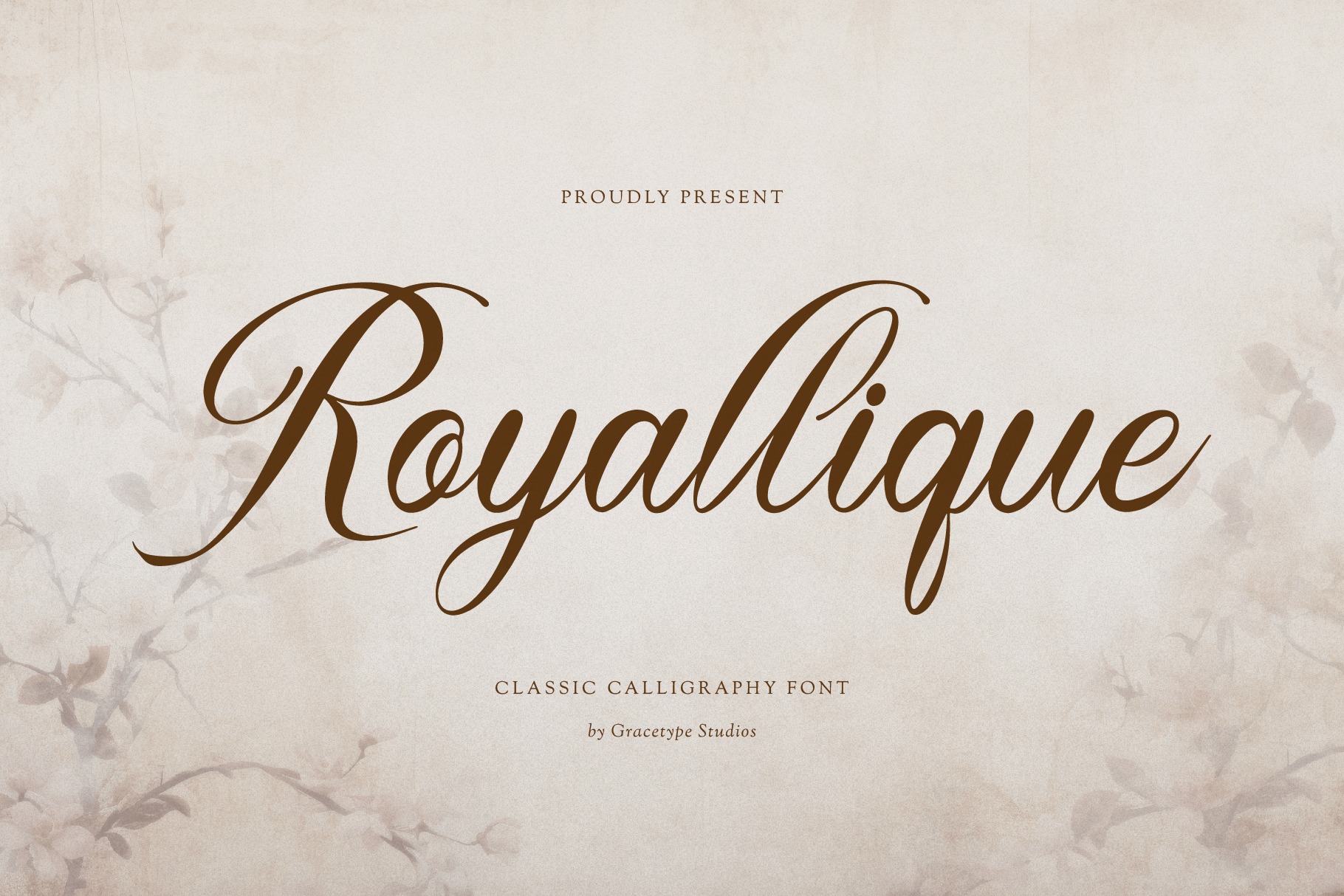
Royallique – Elegant Calligraphy Font
Royallique – Elegant Calligraphy Font is a versatile font designed to adapt beautifully across different design styles, offering dependable readability and balance. Royallique | Classic Calligraphy, from Gracetypestudio, suitable for any projects such as: logos, branding projects, homeware designs, product packaging, mugs, quotes, posters, shopping bags, t-shirts, book covers, name card, invitation cards, greeting cards, label, photography, watermark, special events, and all your other lovely projects that need a Calligraphy taste.